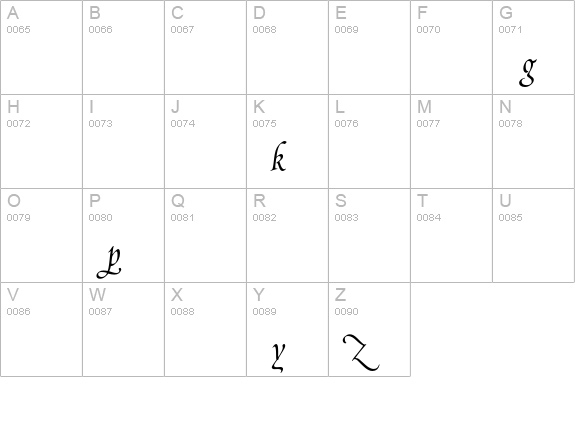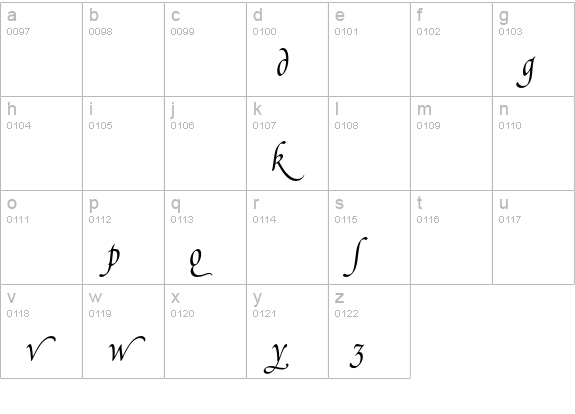
Poetica Supp Lowercase Alternates II Font Details
Poetica Supp Lowercase Alternates II font is a charming and elegant typeface that seamlessly blends classic sophistication with a modern twist. With its delicate lowercase alternates, this font exudes a sense of grace and refinement, making it perfect for adding a touch of sophistication to any design project. This exquisite font is not only visually appealing but also highly versatile, suitable for a wide range of applications including branding, invitations, packaging, and more. Its subtle yet distinctive lowercase alternates add a unique flair to any text, making it stand out from the crowd. And the best part? Poetica Supp Lowercase Alternates II font is available for free download at FontsMarket.com, giving you easy access to this exquisite typeface without any hassle. So why wait? Elevate your designs with the timeless elegance of Poetica Supp Lowercase Alternates II font today!